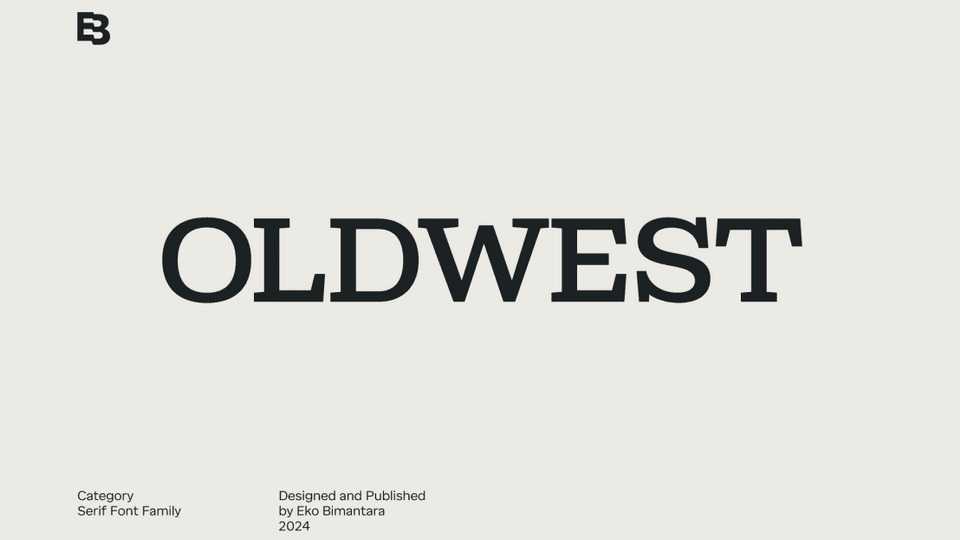
Download Oldwest font, a bold slab serif typeface inspired by the rugged typography of the Old West. With strong, sturdy letterforms and thick slab-like serifs.